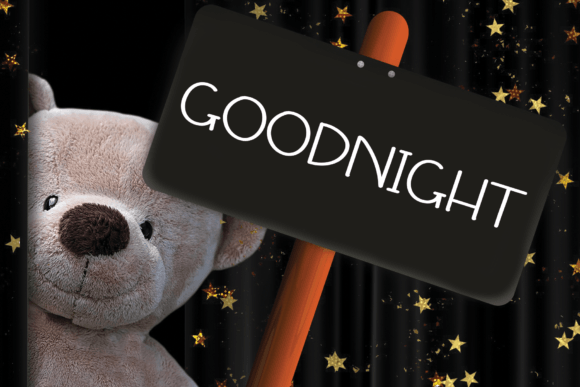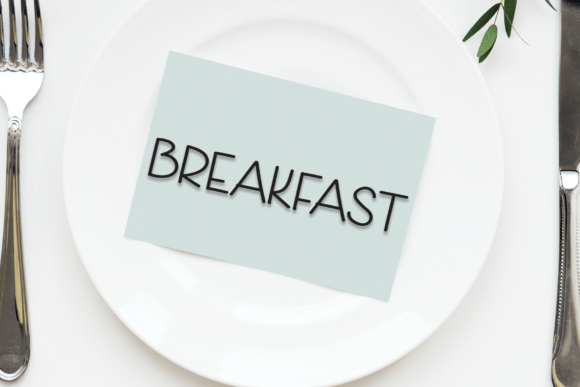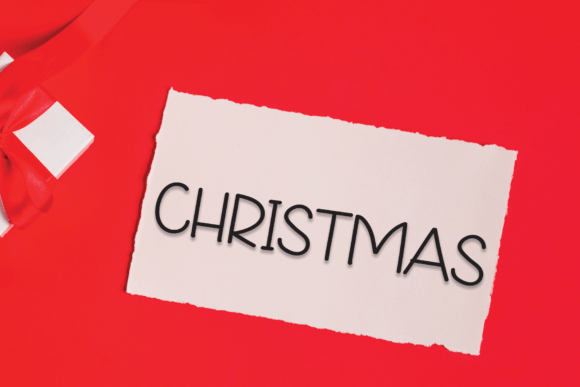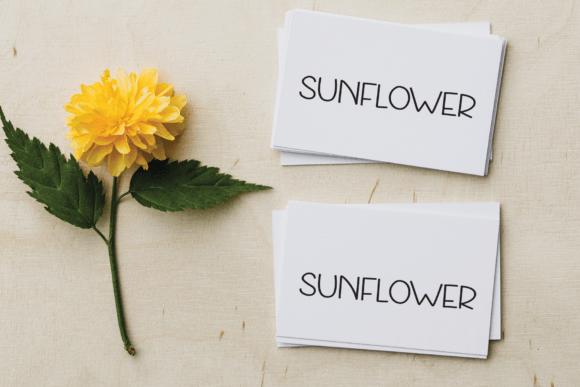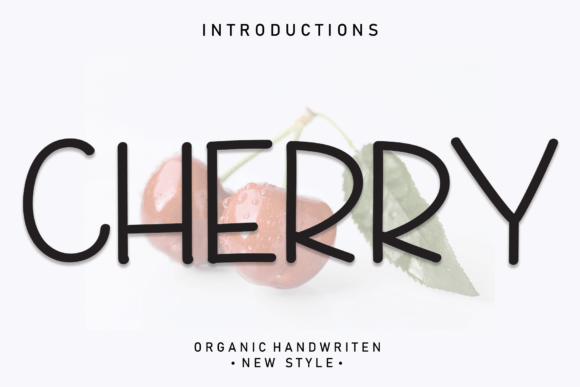
Introducing Cherry Font: The Fun and Friendly Handwritten Font for All Occasions
Are you tired of using the same old fonts for your crafts, digital designs, presentations, and greeting cards? Look no further! Cherry Font is here to add a touch of fun and friendliness to your projects. This versatile handwritten font is perfect for designers, crafters, and anyone looking to add a personal touch to their work.
What Makes Cherry Font Special?
Cherry Font is a unique and charming font that is sure to capture the hearts of designers and crafters alike. Its playful and approachable style makes it perfect for a wide range of projects, from DIY crafts to professional presentations. Whether you’re creating a birthday card, a blog post, or a social media graphic, Cherry Font is sure to add a touch of warmth and personality to your work.
Uses for Cherry Font
One of the best things about Cherry Font is its versatility. Here are just a few ideas for how you can use this amazing font:
- Crafts: Use Cherry Font to add a personal touch to your handmade crafts, such as scrapbook pages, journal entries, and card making projects.
- Digital Design: Add a playful touch to your digital designs, such as social media graphics, blog posts, and website headers.
- Presentations: Use Cherry Font to add a friendly and approachable tone to your presentations, making them more engaging and memorable.
- Greeting Cards: Create personalized and heartfelt greeting cards for special occasions, such as birthdays, holidays, and weddings.
Why Designers and Crafters Love Cherry Font
So, why do designers and crafters love Cherry Font? Here are just a few reasons:
- Easy to Read: Cherry Font is clear and easy to read, making it perfect for body text and headings.
- Highly Versatile: This font can be used for a wide range of projects, from formal to informal, and can be paired with a variety of other fonts and design elements.
- Unique and Playful: Cherry Font has a unique and playful style that is sure to add a touch of personality to your work.
- Perfect for DIY Projects: This font is perfect for DIY projects, such as crafting, scrapbooking, and card making.
Tips for Using Cherry Font
Here are a few tips for getting the most out of Cherry Font:
- Pair with Other Fonts: Cherry Font pairs well with a variety of other fonts, such as sans-serif fonts, script fonts, and serif fonts.
- Use for Headings and Titles: Use Cherry Font for headings and titles to add a touch of personality to your work.
- Experiment with Colors: Cherry Font looks great in a variety of colors, so don’t be afraid to experiment and find the perfect color for your project.
In conclusion, Cherry Font is a fun and friendly handwritten font that is perfect for designers, crafters, and anyone looking to add a personal touch to their work. Its versatility, playfulness, and ease of use make it a great addition to any project. Whether you’re creating crafts, digital designs, presentations, or greeting cards, Cherry Font is sure to become your new favorite font. So why wait? Give Cherry Font a try today and see the difference it can make in your work!